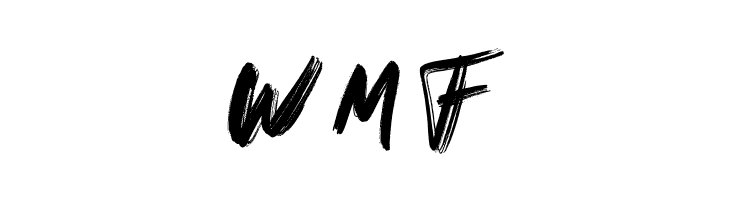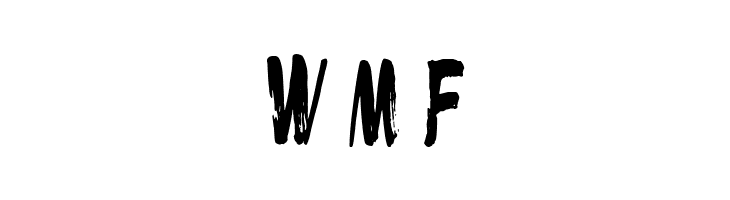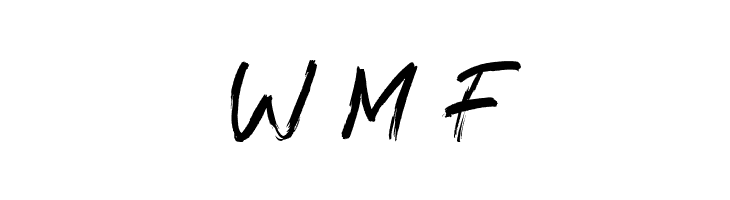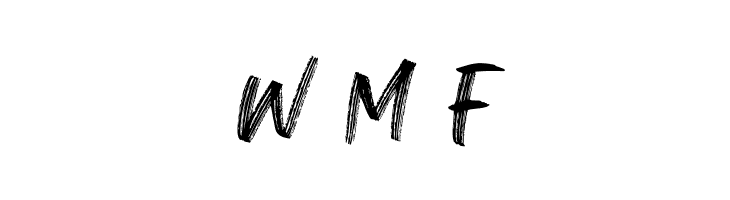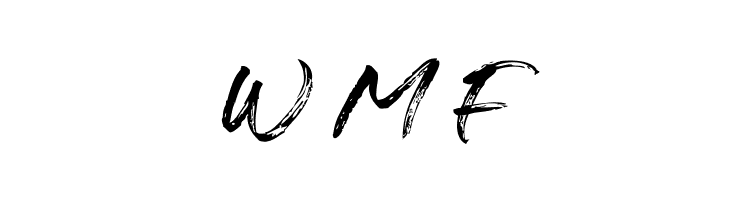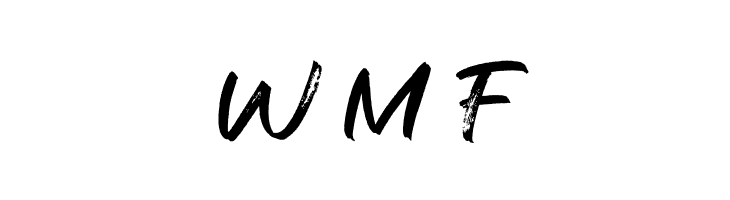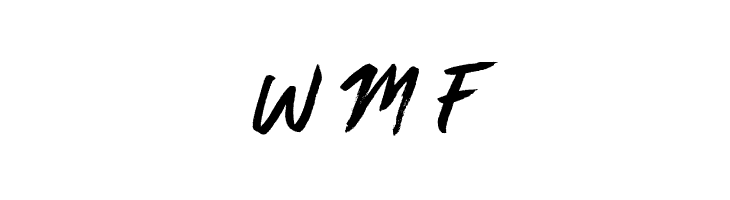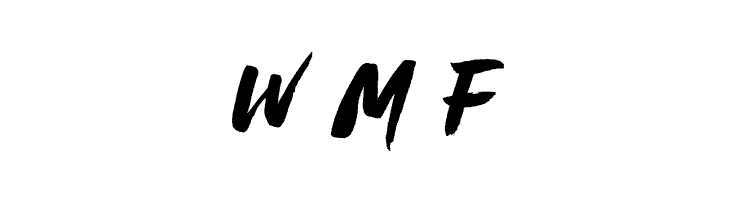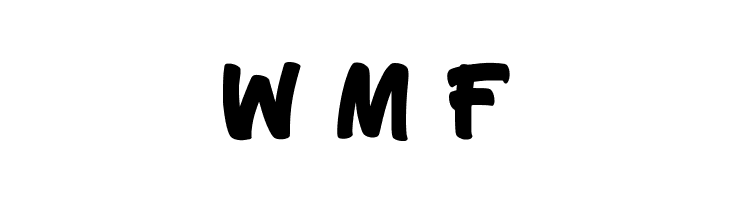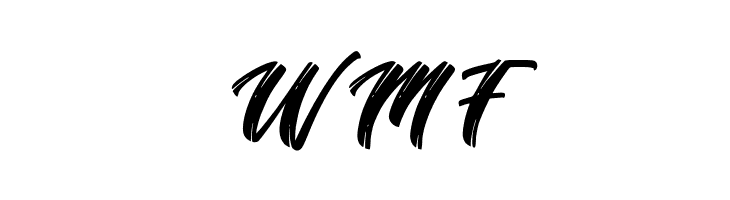
A bold, brush script font with dynamic, hand-painted strokes.
A bold, brush-style font with dynamic, hand-painted strokes.
A bold, hand-painted brush font with a rustic, textured style.
A bold, textured brush font with a hand-painted look.
A bold, hand-painted style font with a raw, energetic appearance.
A bold, expressive font with playful, uneven strokes and a hand-painted feel.
A playful, brush-style font with a hand-painted look, perfect for artistic projects.
A bold, expressive script font with a hand-painted look.
A bold, expressive brush-style font with dynamic, hand-painted strokes.
A bold, expressive script font with a hand-painted, artistic style.
A bold, brush-like font with an expressive, hand-painted style.
A bold, expressive brush-style font with a hand-painted appearance.
A dynamic, brush-style font with a hand-painted appearance.
A bold, brush-style font with dynamic, hand-painted strokes.
A bold, energetic brush script with a hand-painted look.
A bold, expressive font with a hand-painted, textured style.
A bold, brush-style font with dynamic, hand-painted strokes.
A bold, dynamic brush script font with expressive strokes and a hand-painted look.
A bold, brush-style font with a hand-painted, artistic appearance.
A bold, brush-style font with dynamic, hand-painted strokes.
A bold, hand-painted style font with thick strokes and dynamic energy.
A bold, hand-painted style font with irregular, expressive strokes.
A bold, hand-painted style font with irregular, dynamic strokes and a rough texture.
A bold, hand-painted style font with dynamic, brush-like strokes.
A bold, expressive script font with a hand-painted, artistic style.
A bold, brush-style font with a hand-painted, dynamic appearance.
A dynamic brush-style font with sharp, angular strokes and a hand-painted look.
A bold, textured brush font with a dynamic, hand-painted style.
A bold, brush-style font with dynamic, hand-painted strokes.
A dynamic dry brush font with an artistic, hand-painted style.
A bold, brush-style font with dynamic, hand-painted strokes.
A lively brush script font with bold, dynamic strokes and a hand-painted feel.
A bold, brush-style font with a hand-painted, energetic appearance.